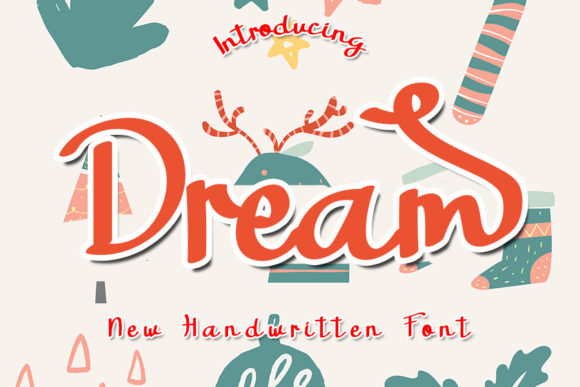
About Dream Font
Dream is a magical script font carefully created with a touch of elegance. Whether you’re looking for fonts for Instagram or calligraphy scripts for DIY projects, this font will turn any creative idea into a true piece of art!